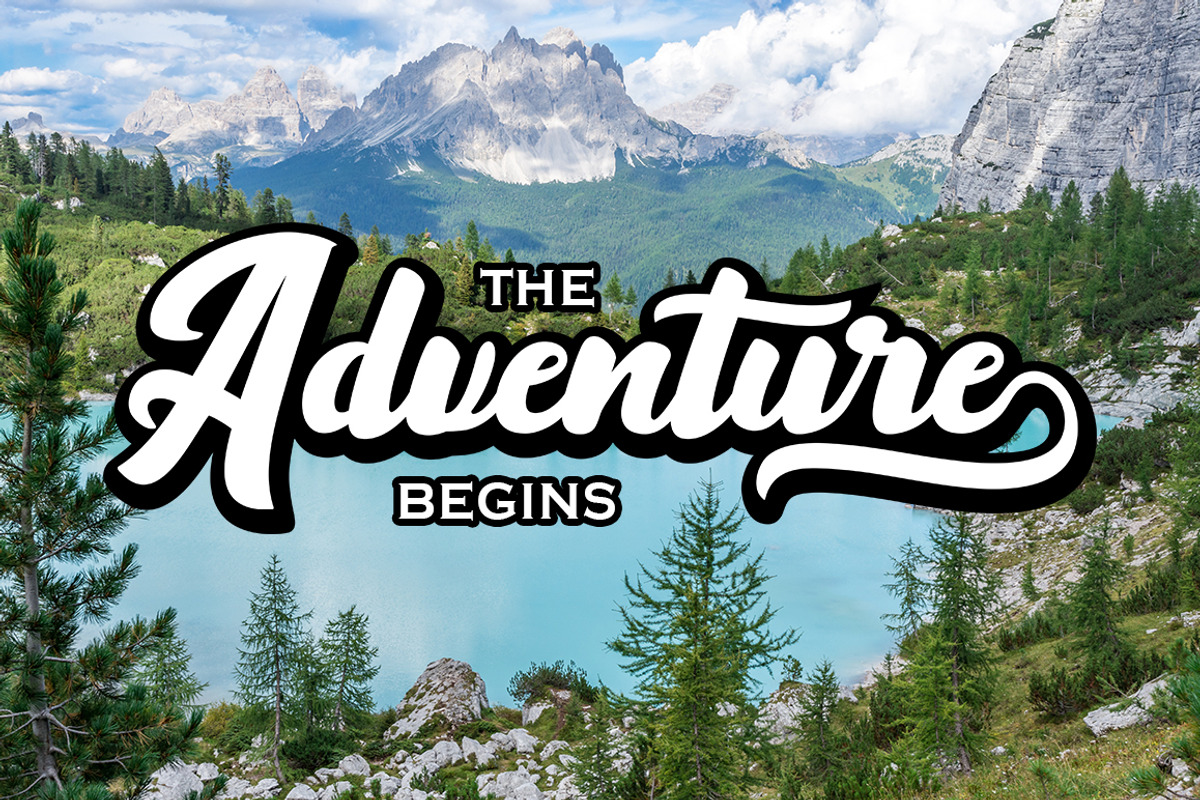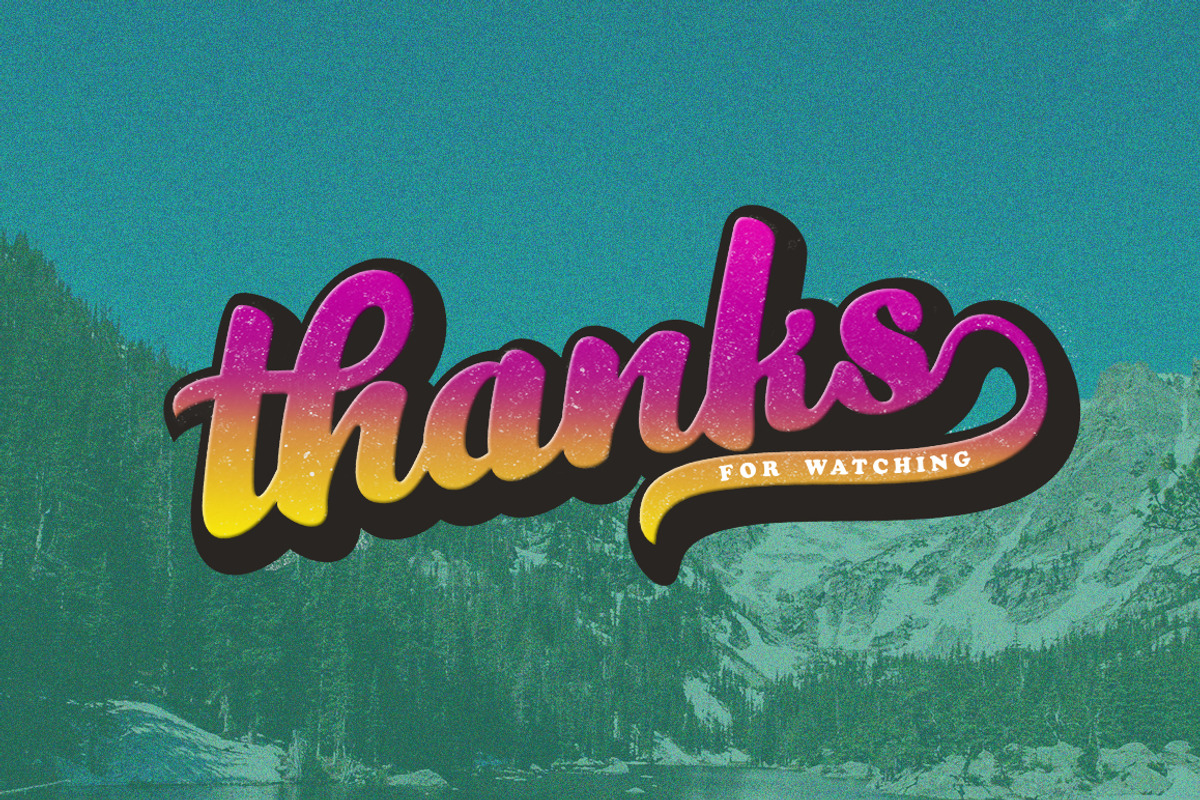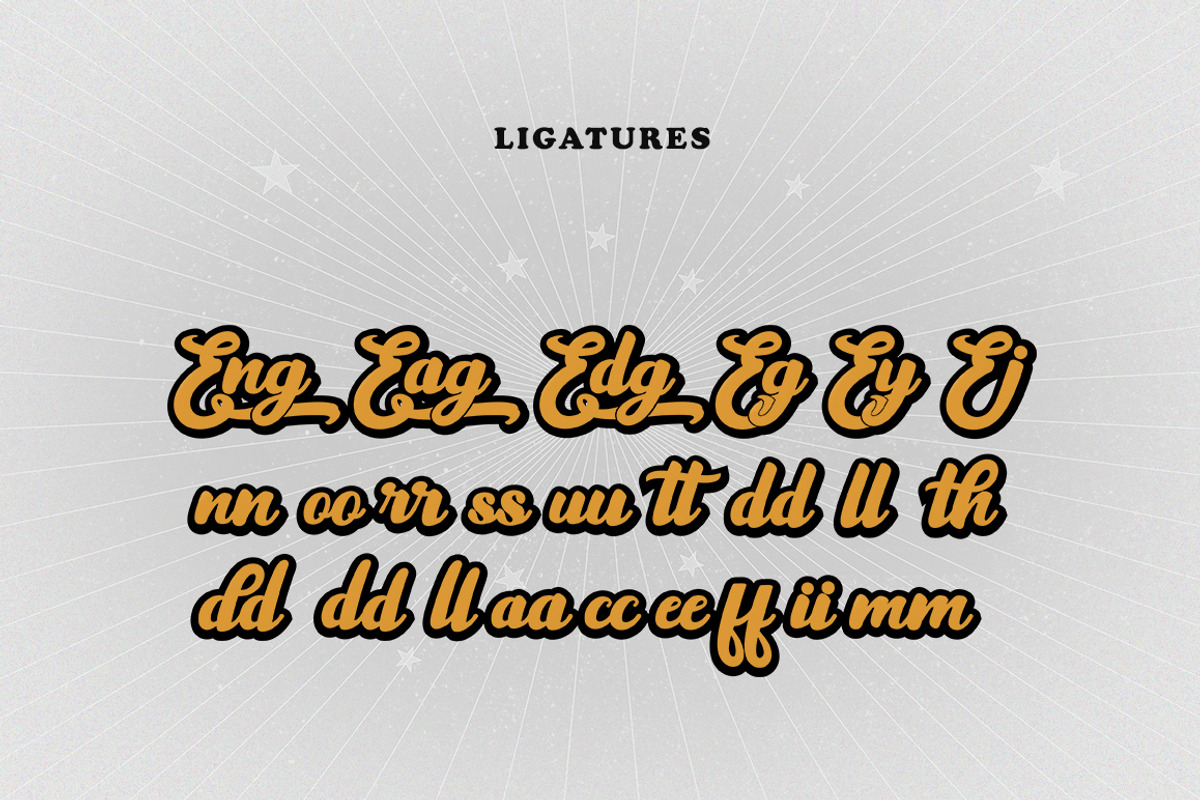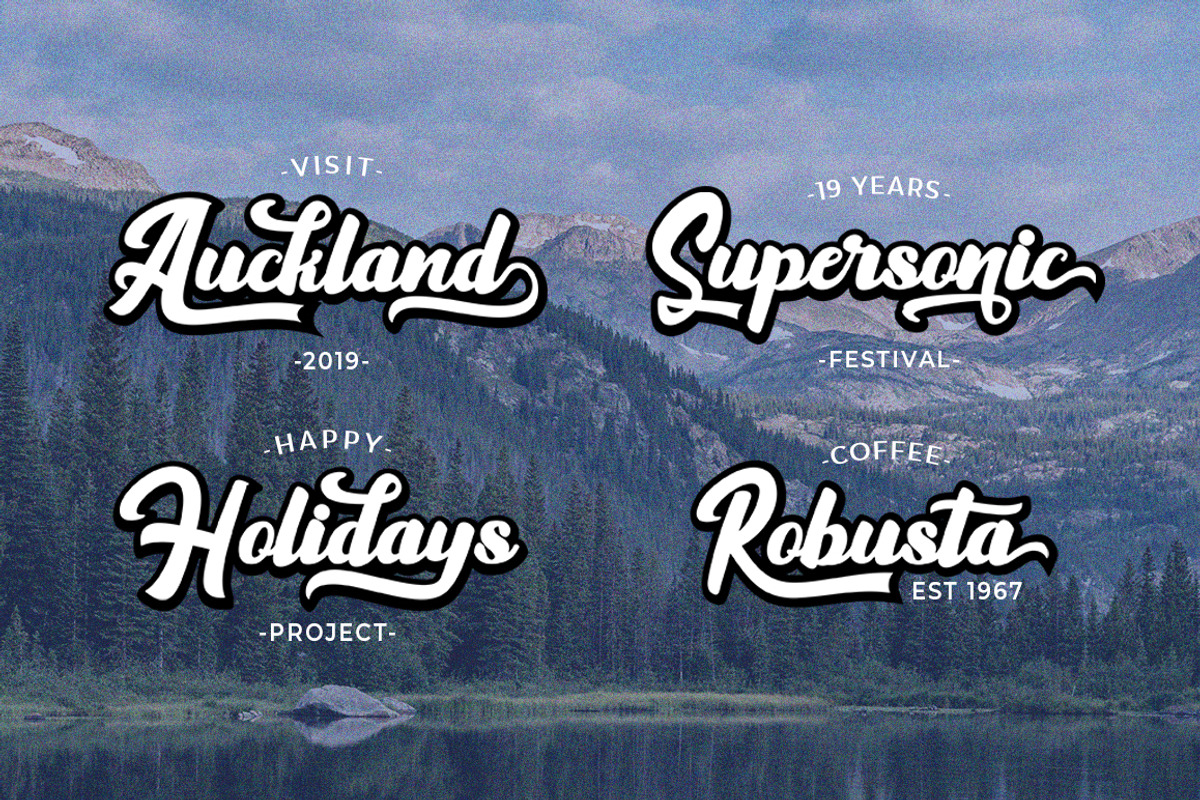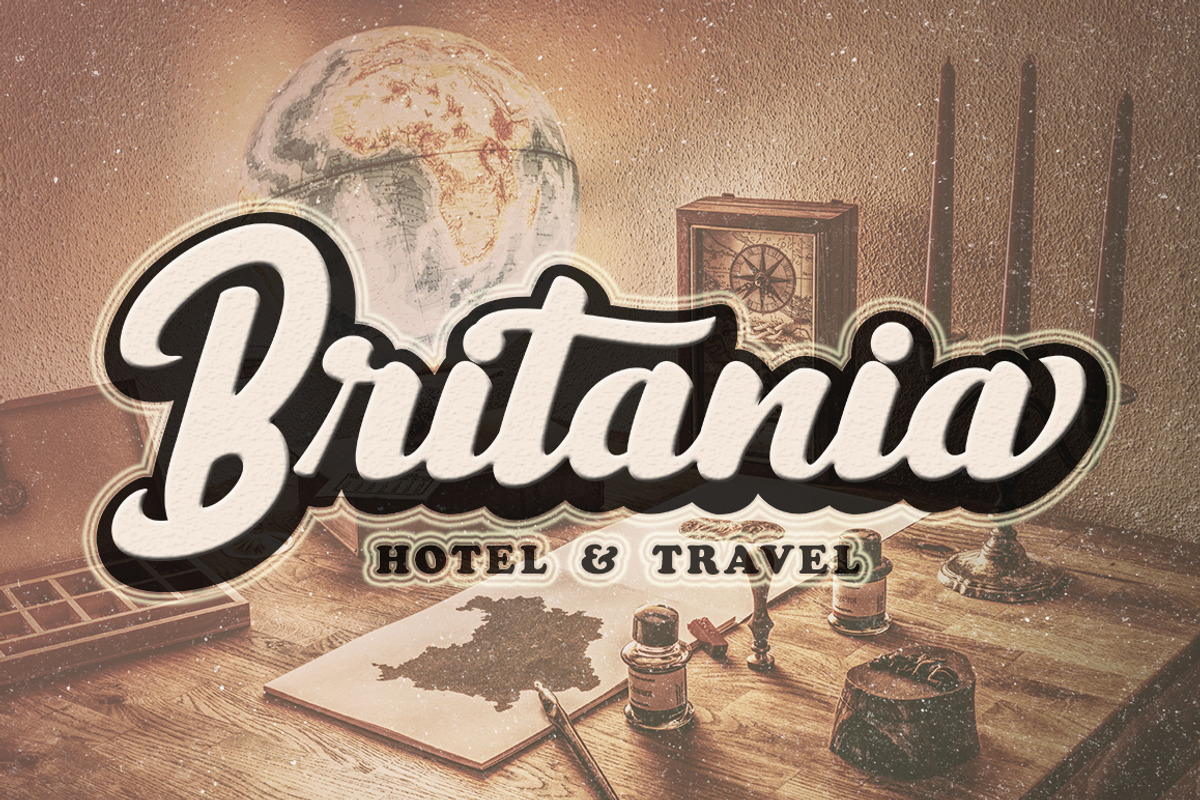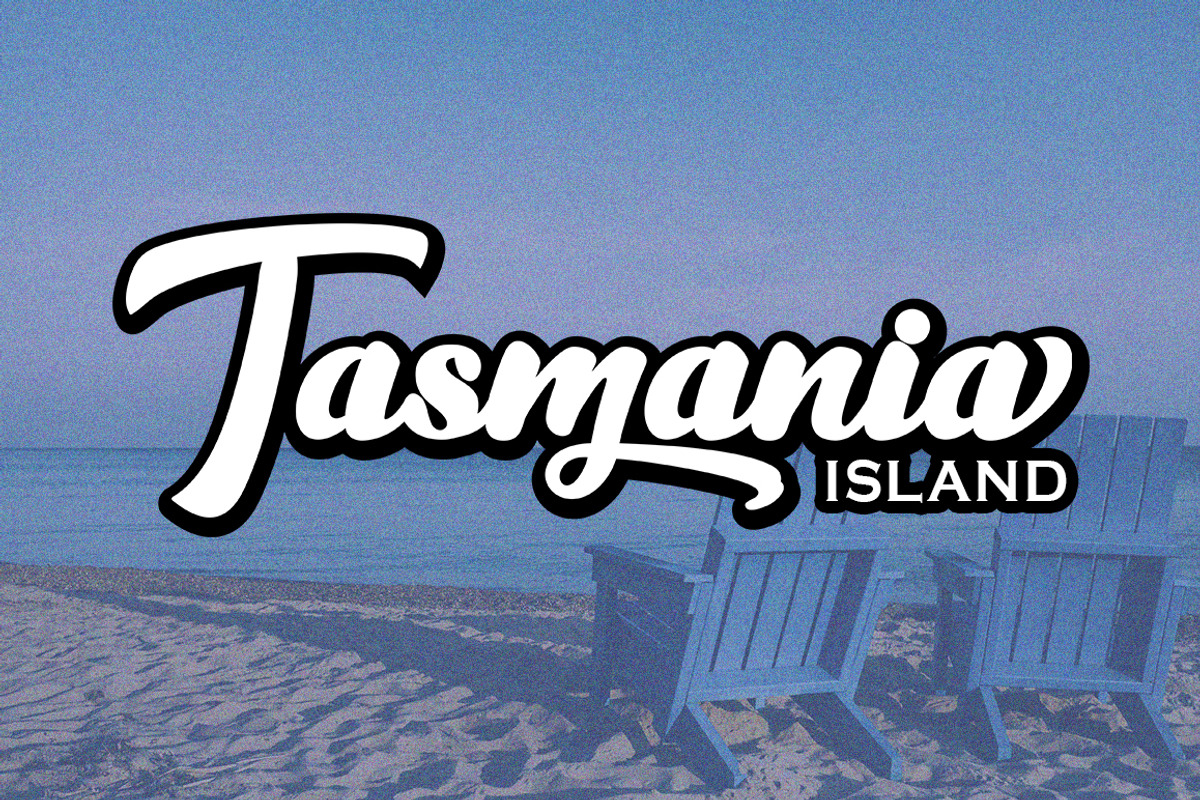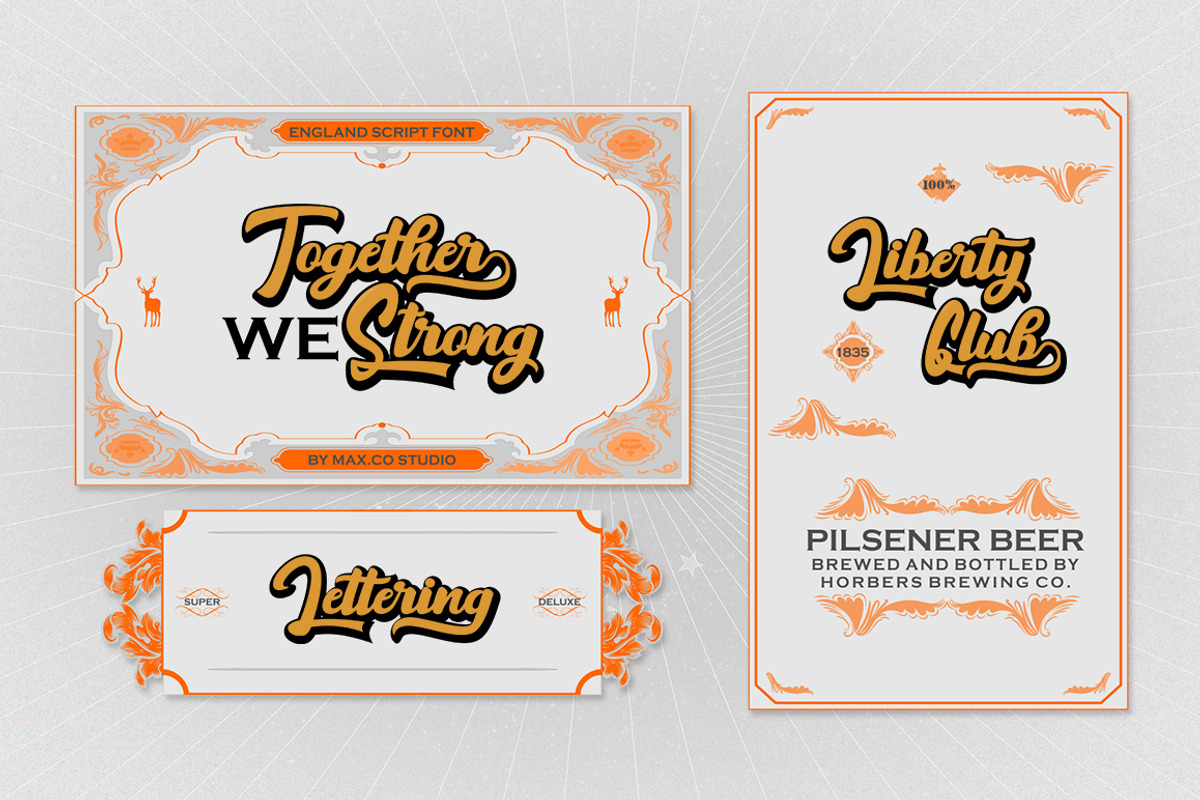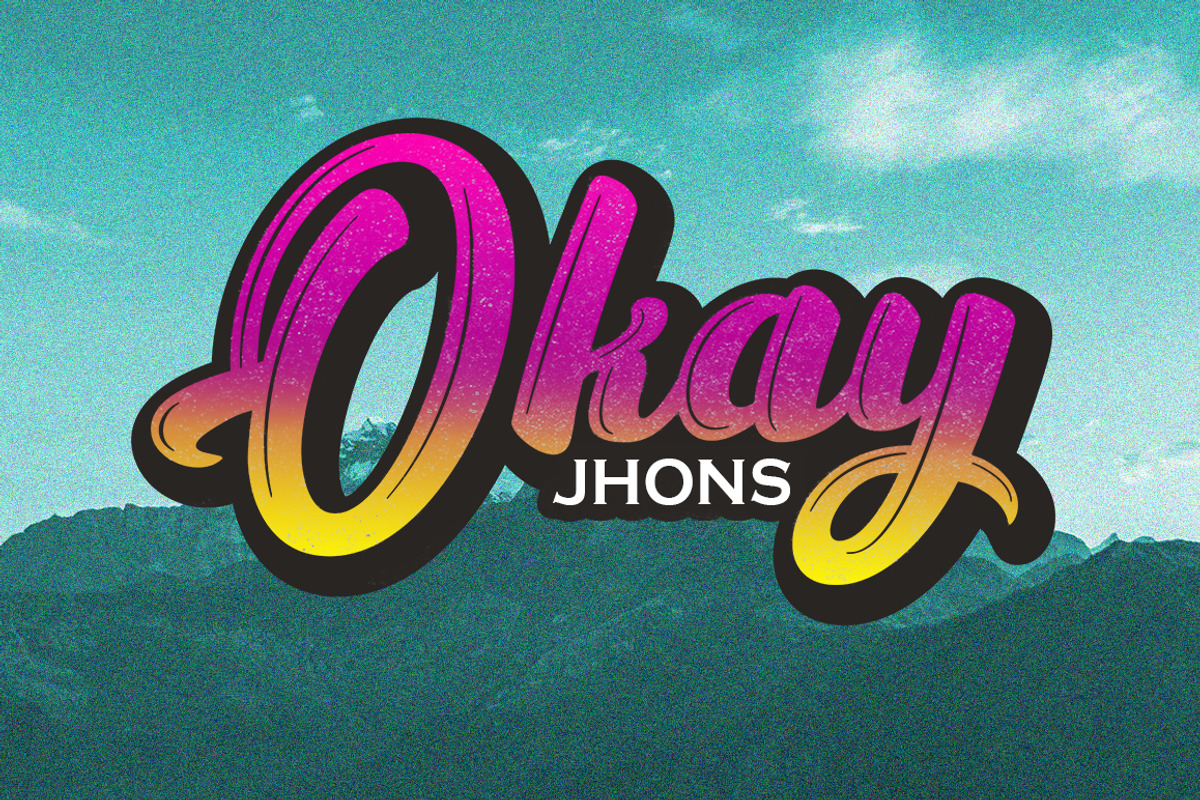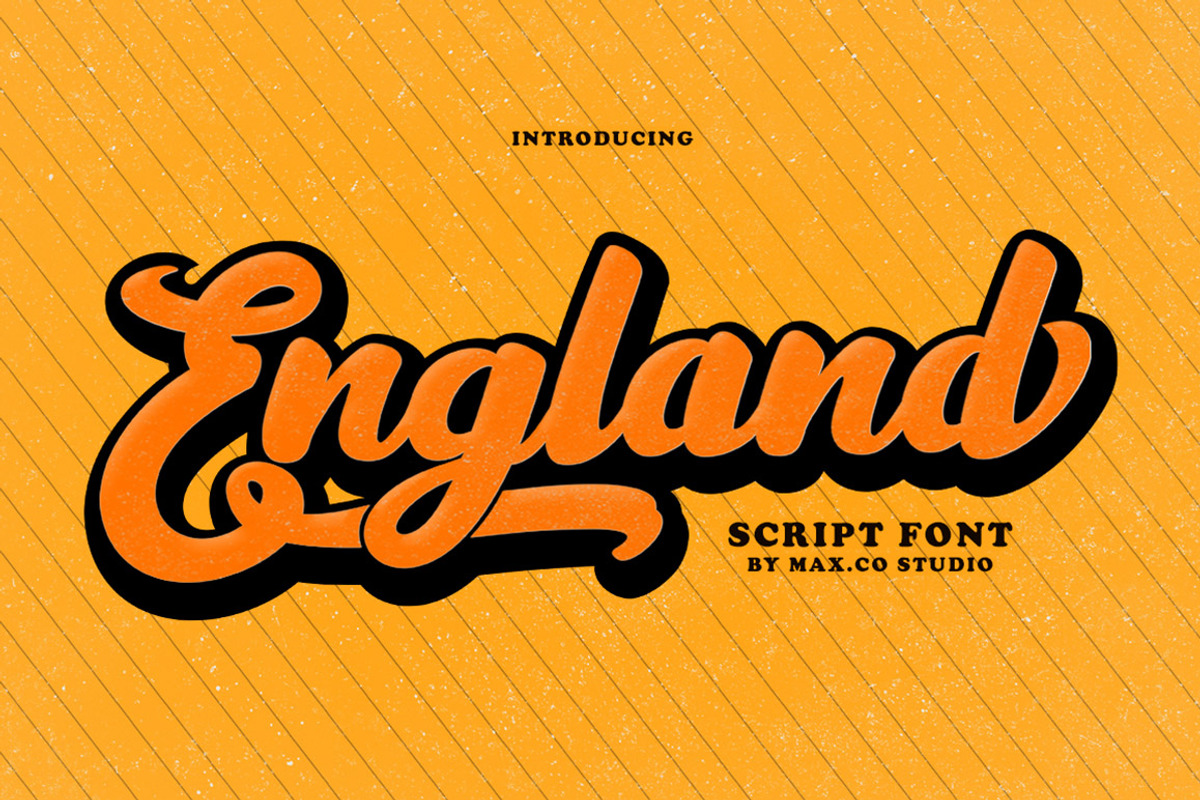
England Script Font
England Script is a bold typeface which is elegant, fun and vintage. It can be used for various purposes such as logos, wedding invitation, t-shirt, letterhead, signage, news, posters, badges etc.
England Script features 500+ glyphs and extruded font, alternate characters, ligatures, swash and multiple language support: ŠÀÁÂÃÄÅÆÇÈÉÊËÌÍÎÏŸŽÐÑÒÓÔÕÖØÙÚÛÜÝßàáâãäåæçèéêëìíîïñòóôõöøùúûêýÿŒœšž